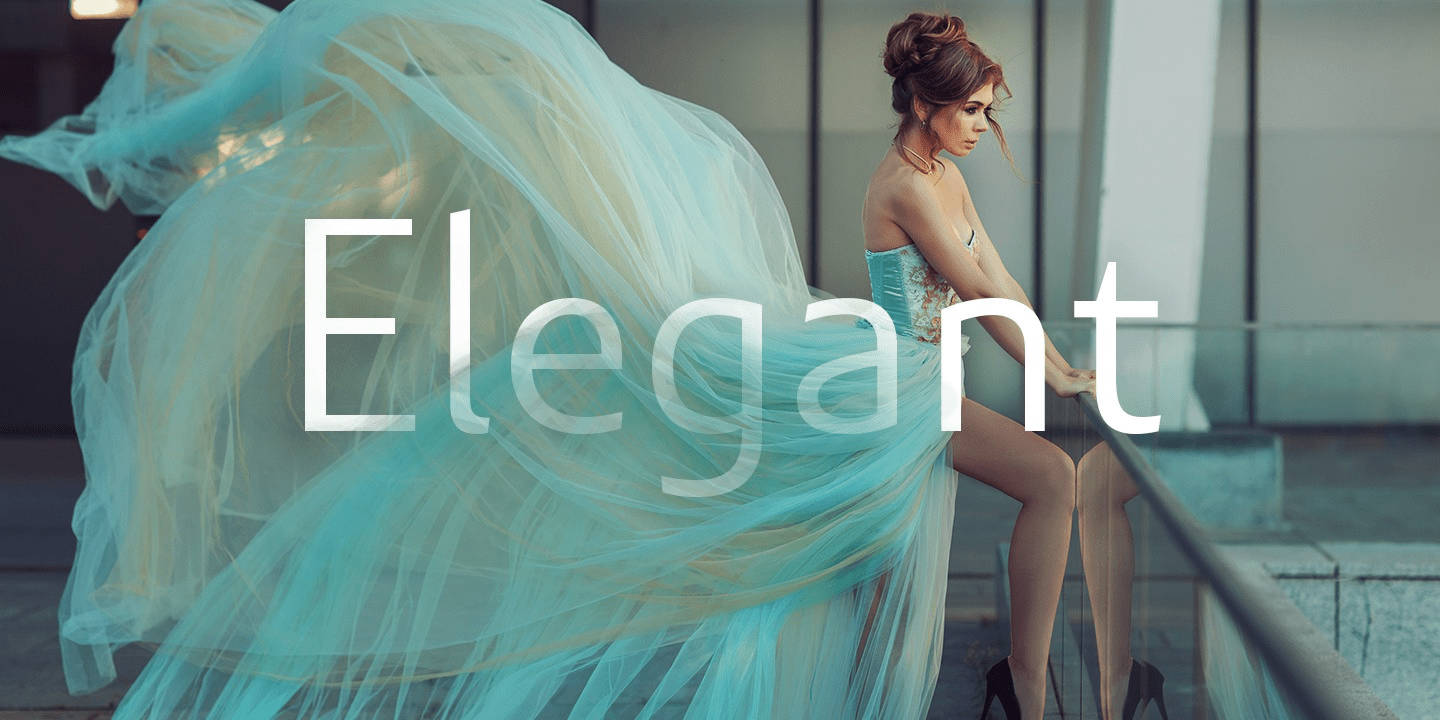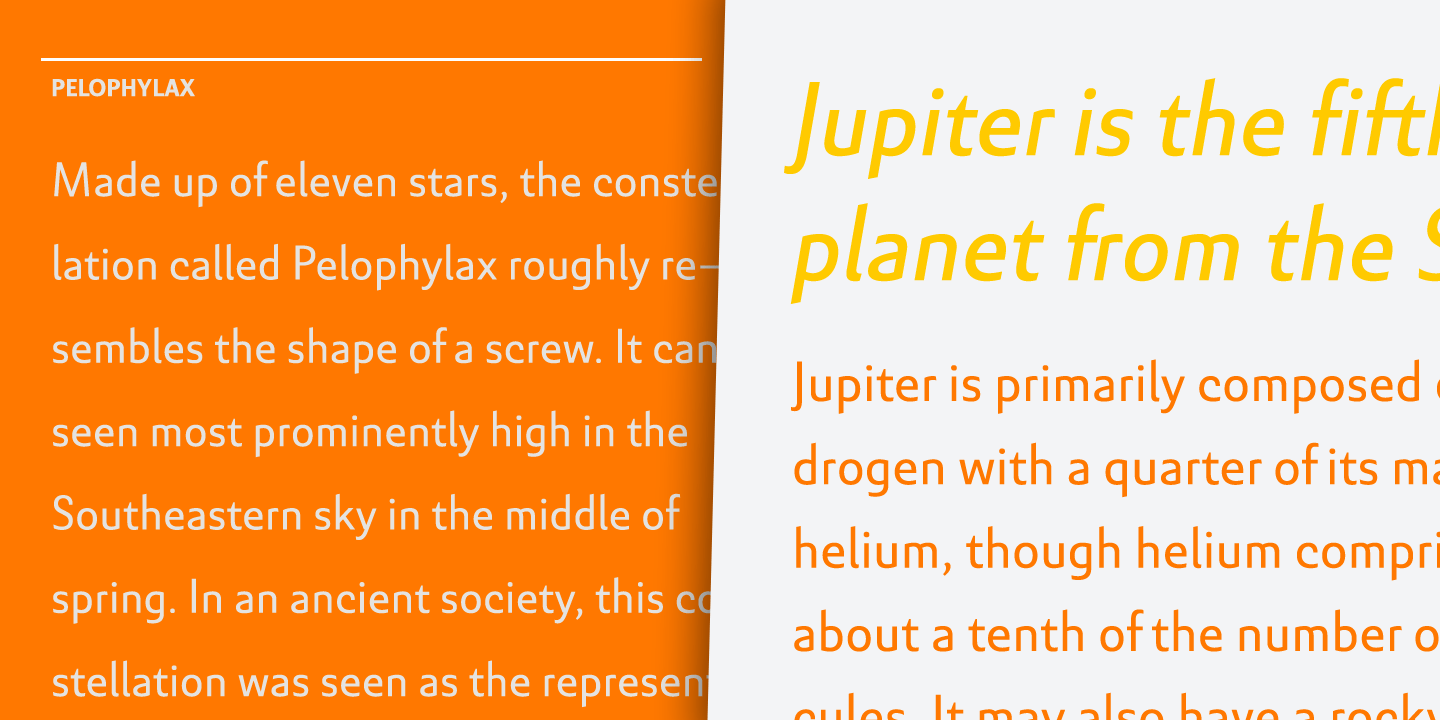
About Senlot Sans
Senlot Sans defies convention. A follow-up to the elegant Senlot, Senlot Sans is anything but another sans serif font in search of character. This new member of the Senlot family, while slightly more traditional than its original cousin, confidently boasts…